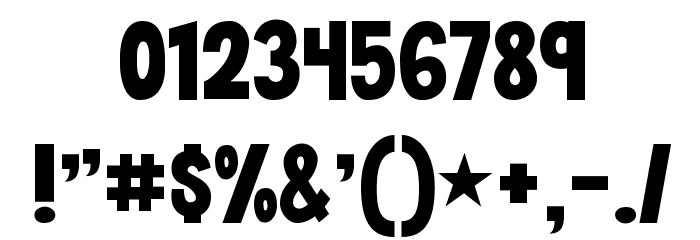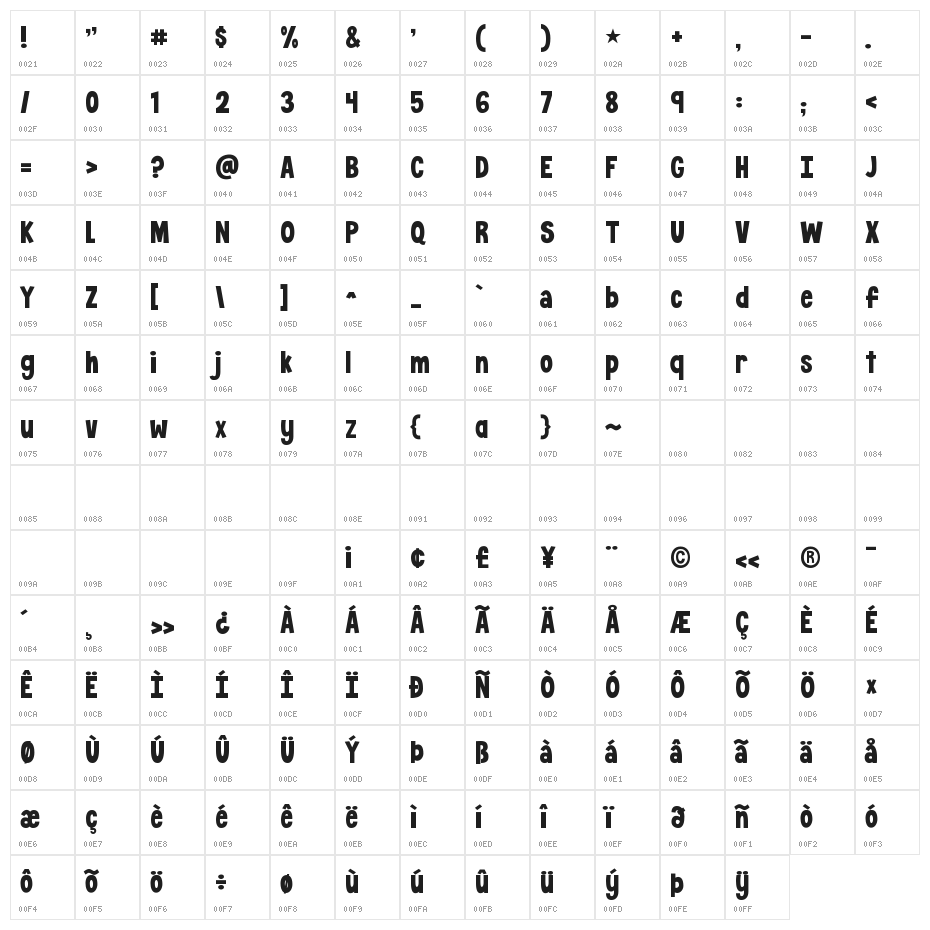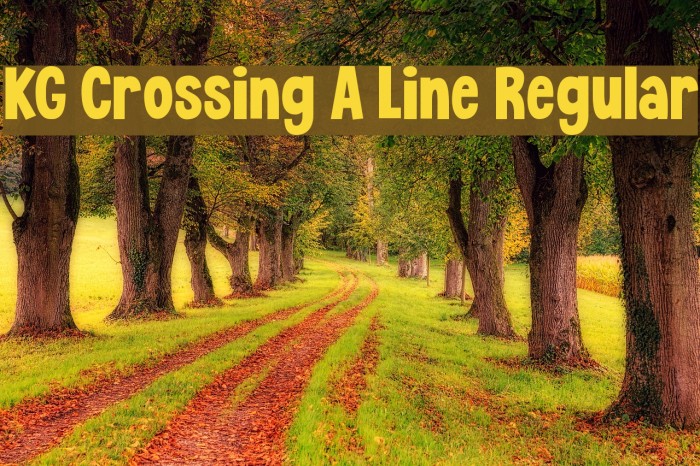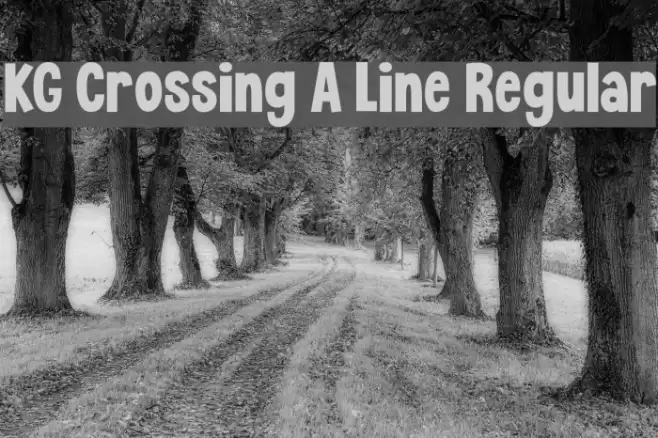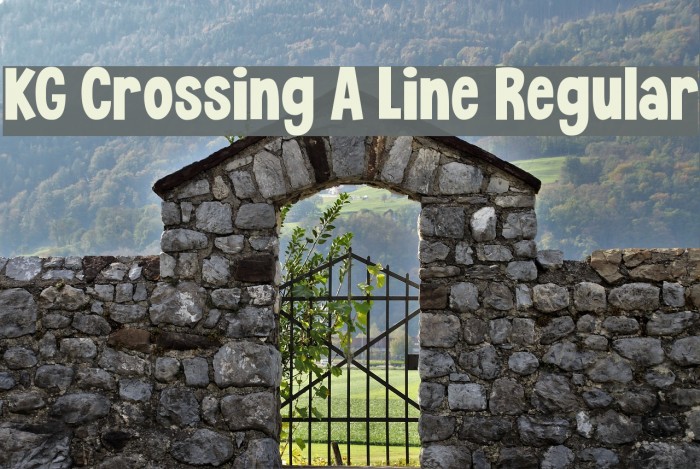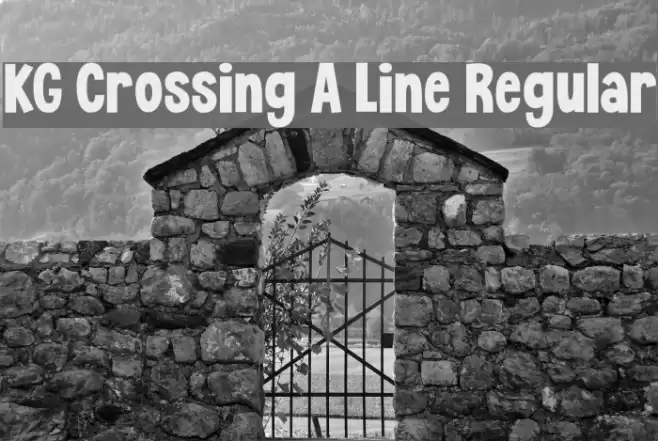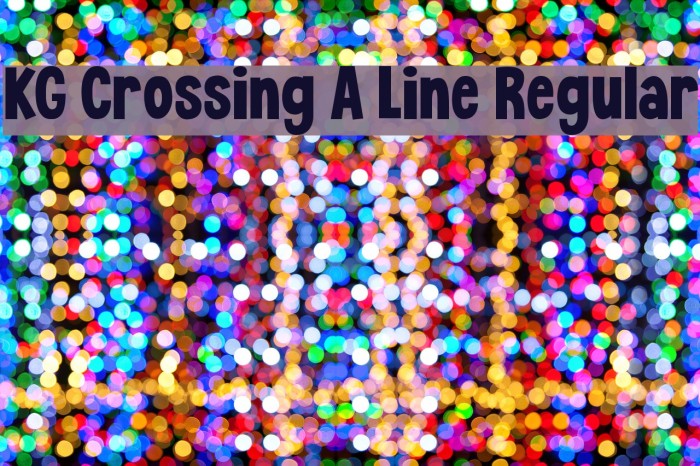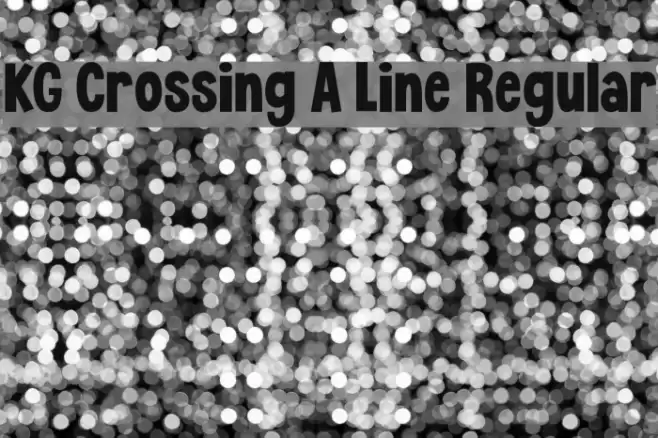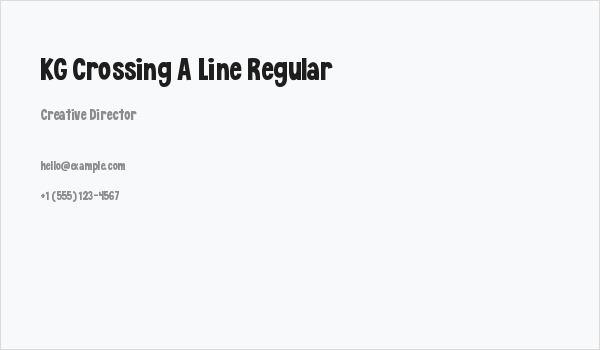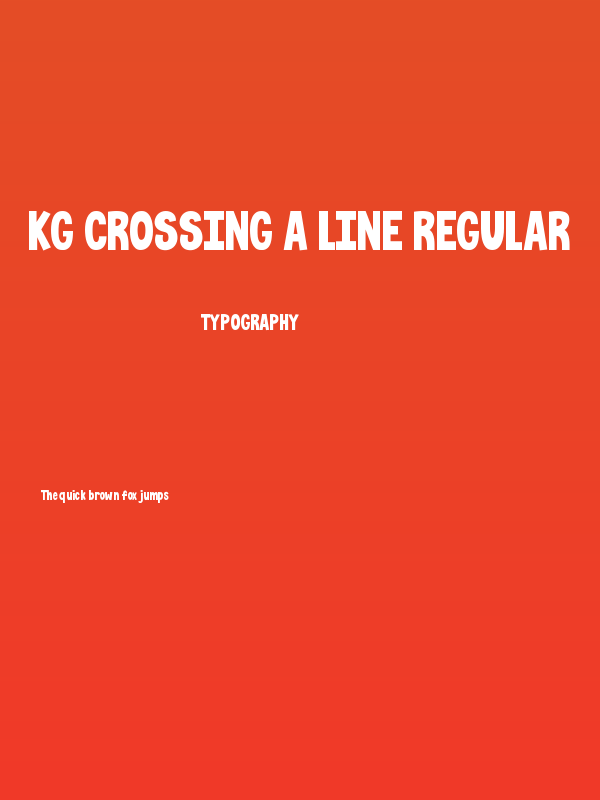
KG Crossing A Line Regular Font
KG Crossing A Line Regular Description
This font features bold, rounded characters with a playful and friendly appearance. The uppercase and lowercase letters are well-proportioned, with a consistent stroke width that gives it a strong presence. The numerals are clear and easily distinguishable, making them suitable for a variety of applications. Special characters are included, maintaining the same bold style, which adds versatility to the font. Its thick strokes and rounded edges make it ideal for attention-grabbing designs.
| Overall Style | Playful, Friendly |
| Proposed Projects | Ideal for children's books, playful branding, posters, and headlines. |